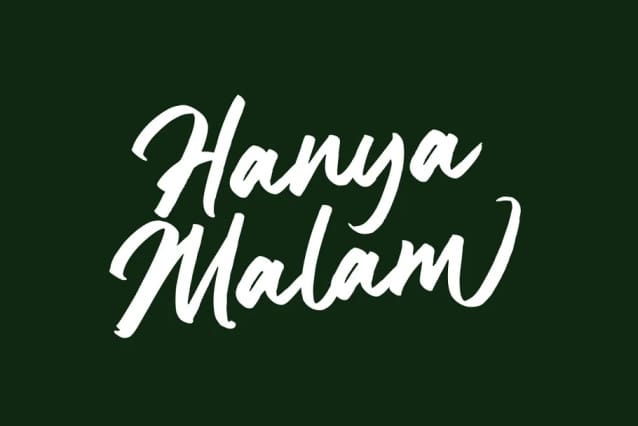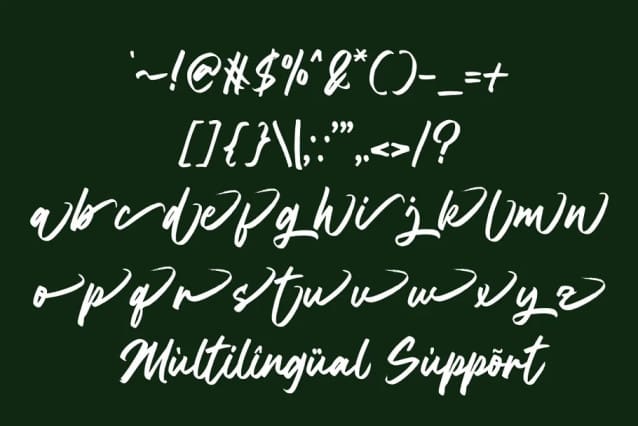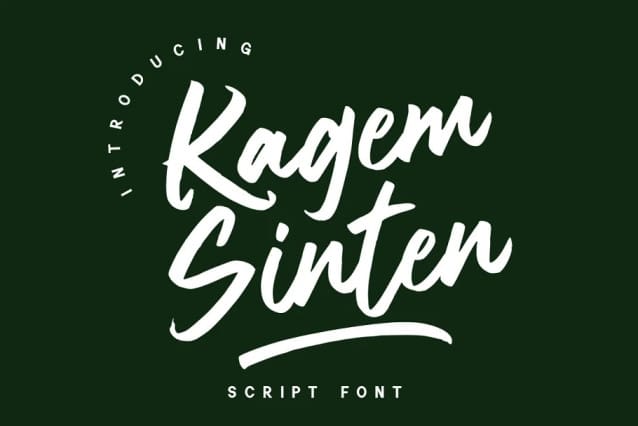
Kagem Sinten Font
Kagem Sinten Font, is a natural handwritten brush font. It looks stunning on thank you cards, quotes, greeting cards, logos, business cards, and every other design which needs a handwritten touch.